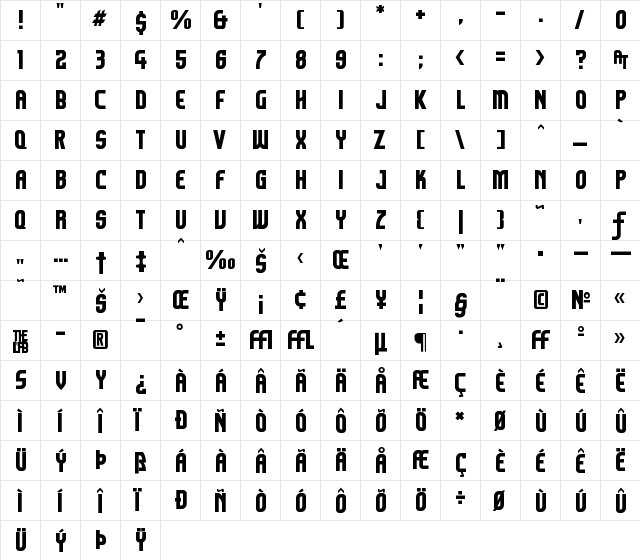
Komikazoom Regular
| Designer | Apostrophe |
Design Context for Komikazoom Typeface
Komikazoom offers clean, dependable letterforms without strong stylistic allegiance, making it a practical choice for designers who need flexibility.